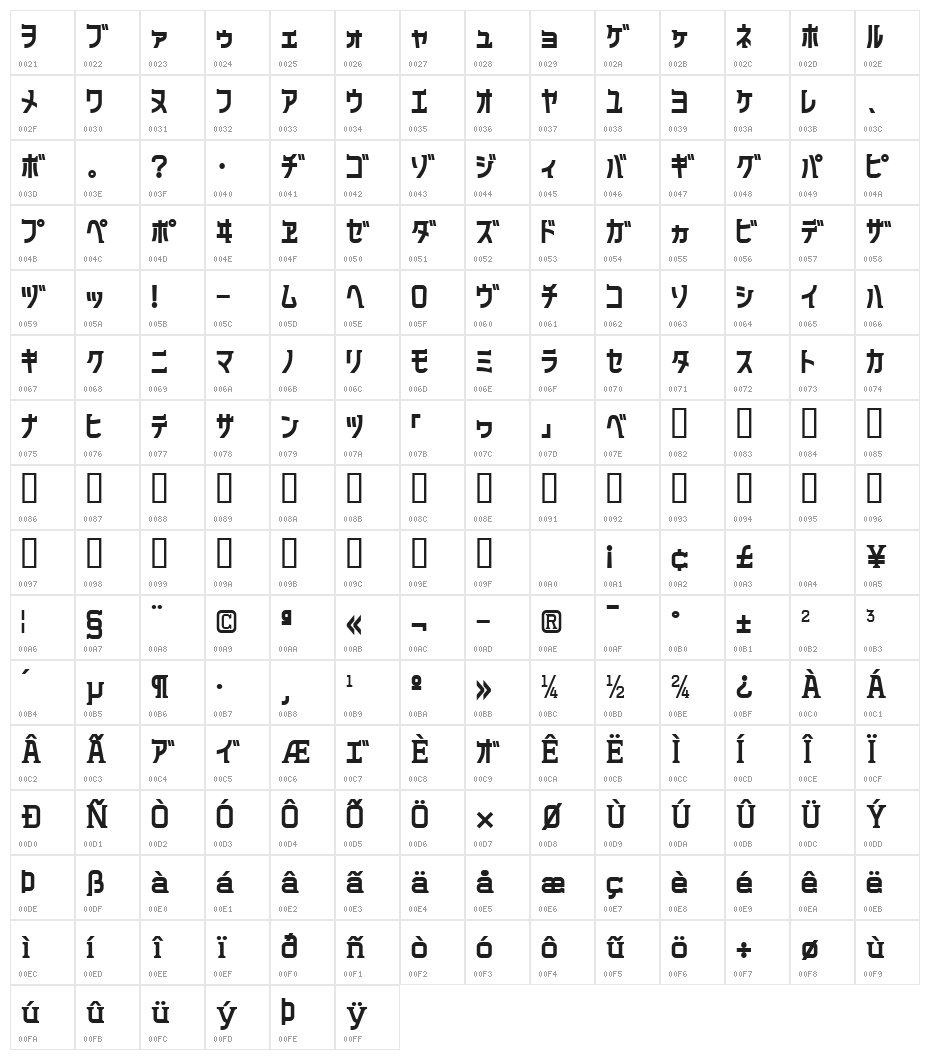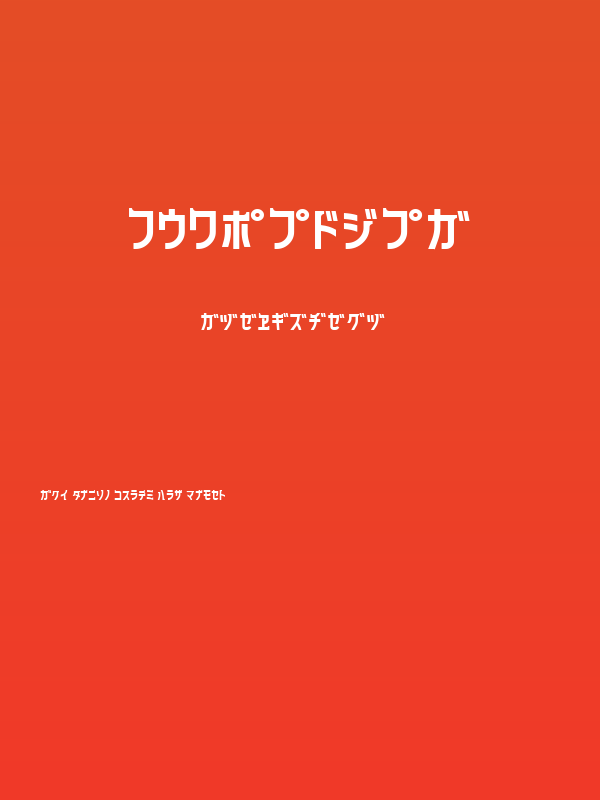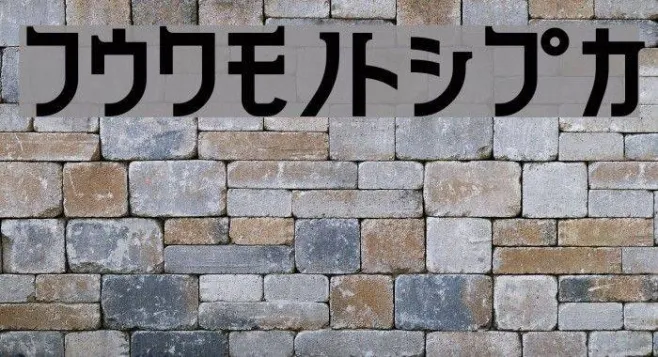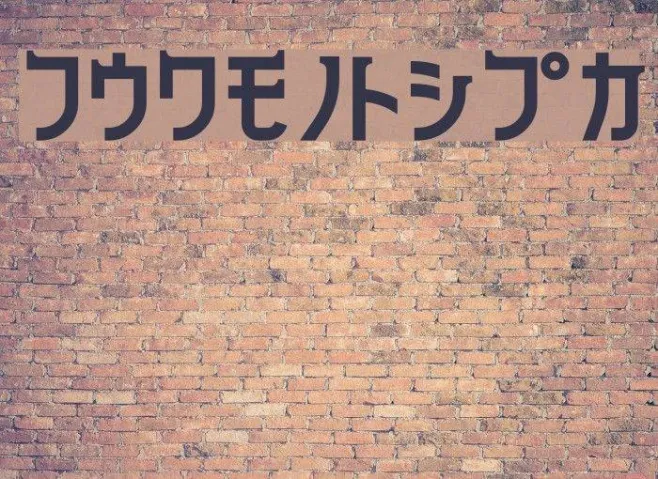
240mksdKt Font
240mksdKt Description
A bold, geometric sans-serif Japanese typeface with uniform stroke thickness, angular terminals, and a modern, clean appearance. The characters are evenly spaced and have a strong visual presence, making them highly legible at various sizes.
| Use Case | Headlines, Posters, Signage, Branding |
| Proposed Projects | Posters, headlines, signage, branding, advertising, digital interfaces. |